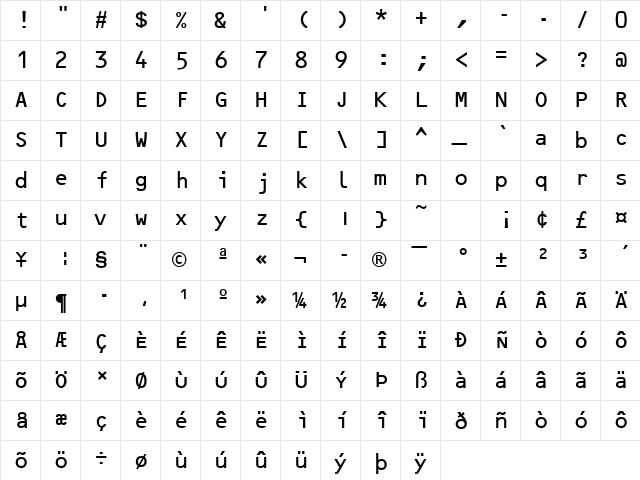
OCRBLetM Regular
Design Context for OCRBLetM Typeface
OCRBLetM is a composed and adaptable typeface that performs quietly and consistently across a wide range of design contexts.